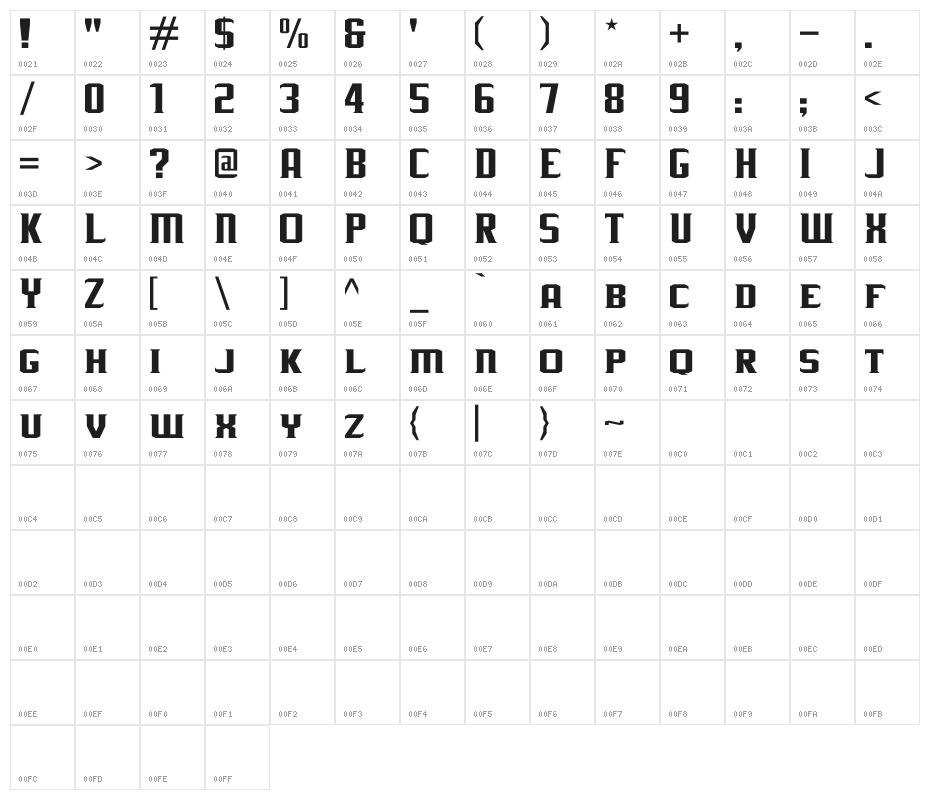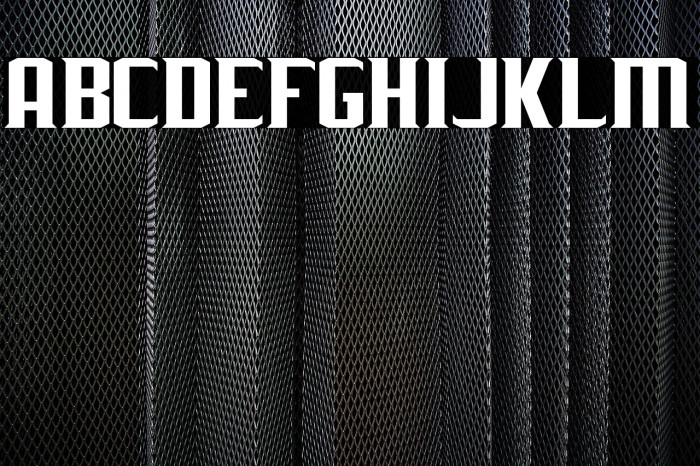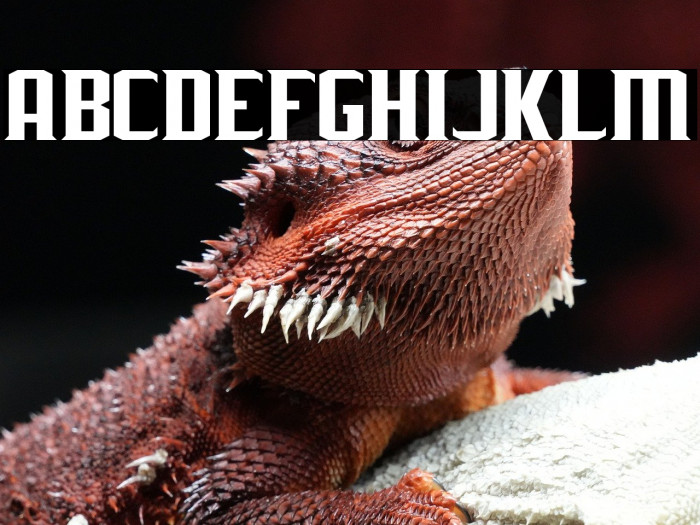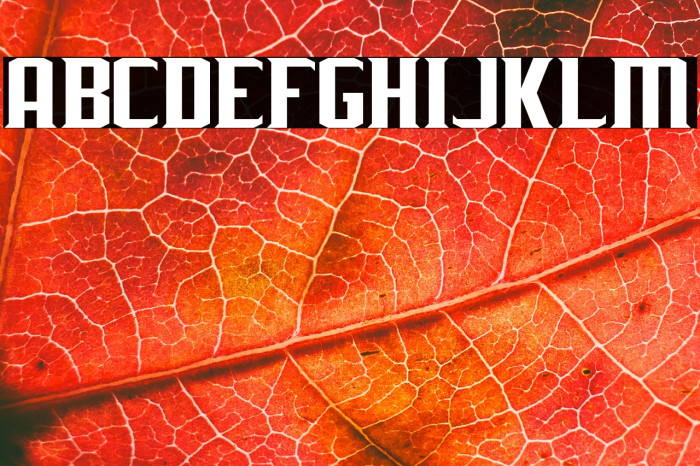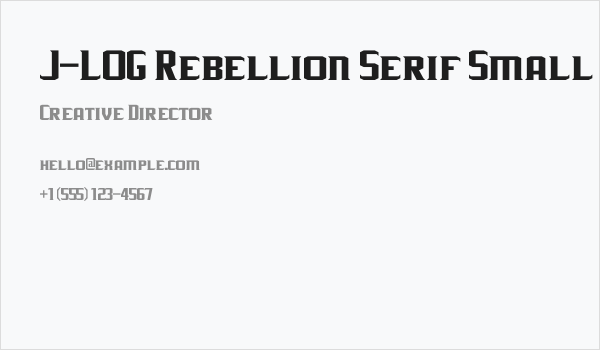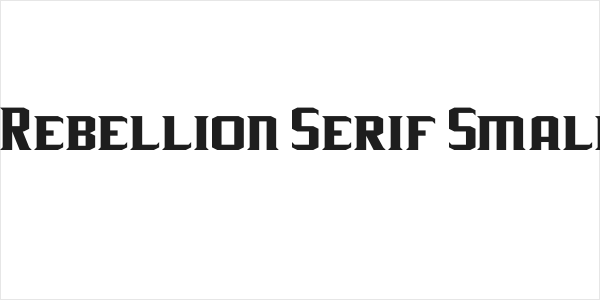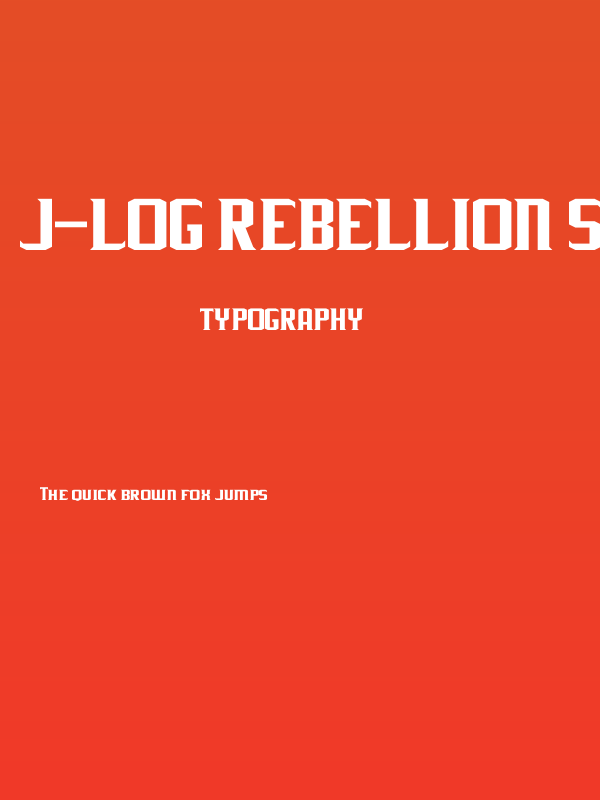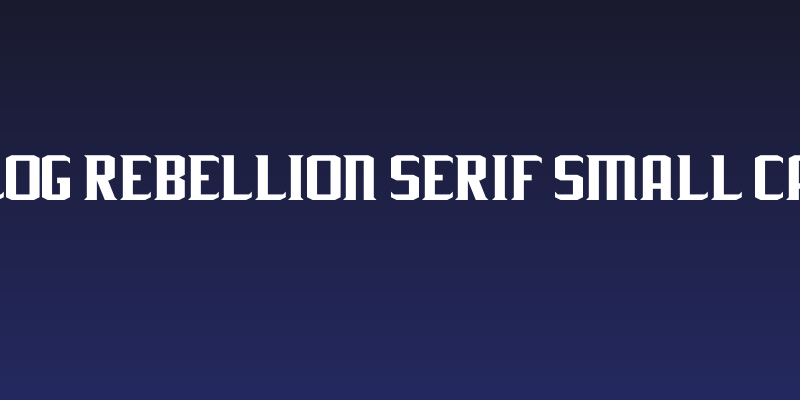
J-LOG Rebellion Serif Small Caps Font
J-LOG Rebellion Serif Small Caps Description
This font features a bold and striking design with sharp, angular serifs that give it a rebellious and modern feel. The uppercase letters are uniform in height, creating a cohesive and structured appearance. The characters are well-defined with a strong presence, making them ideal for attention-grabbing headlines. The numbers and special characters maintain the same bold and angular style, ensuring consistency across all elements. The font's geometric nature and sharp edges convey a sense of strength and authority.
Proposed ProjectsIdeal for branding, posters, and headlines that require a strong, authoritative presence.